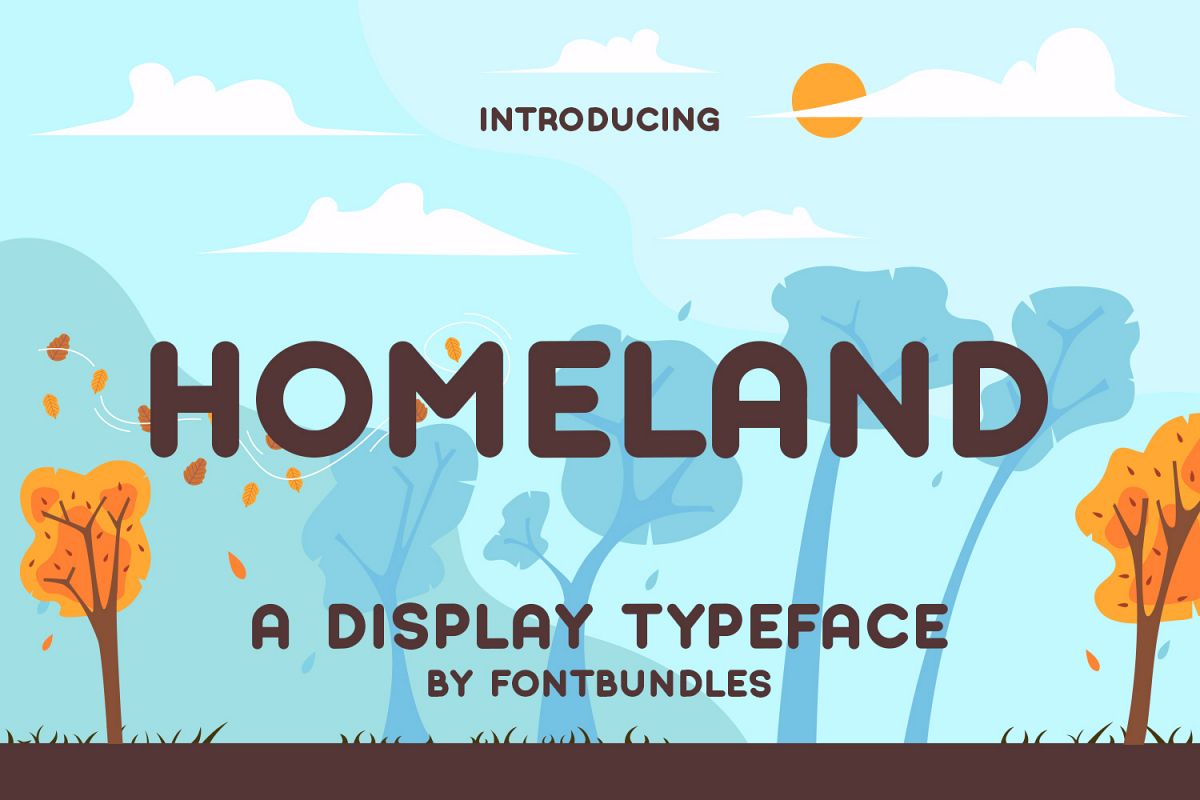
Homeland is a display typeface. Perfect for display, quotes, logo, logotype, badges, emblem, business card, merchandise, packaging, branding, and many more.